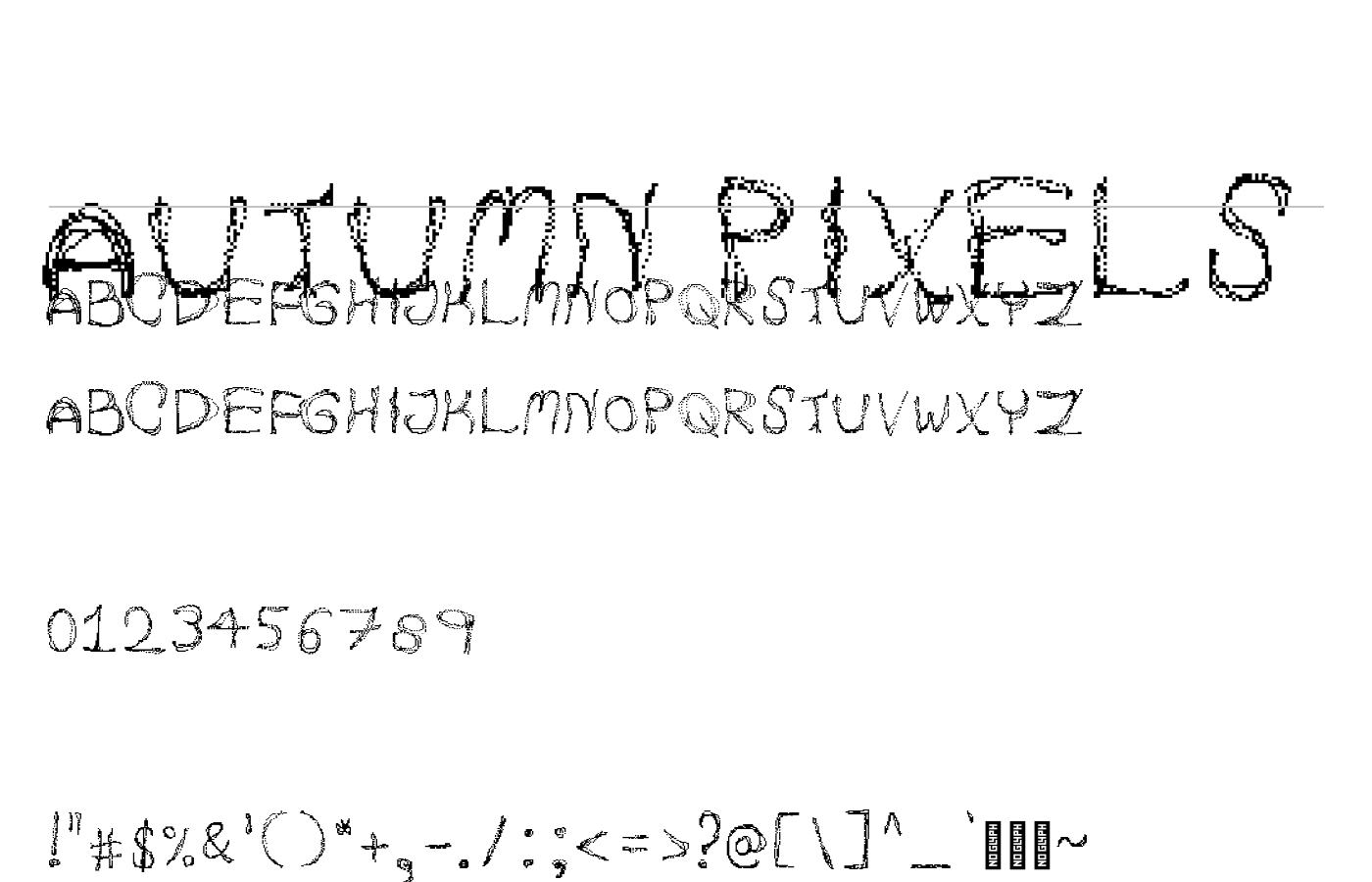
Autumn Pixels is a playful, pixel-inspired sans serif font with a hand-drawn, slightly irregular style that evokes a vintage digital aesthetic. Its light weight and narrow width combine with quirky letterforms to create a friendly, informal feel ideal for retro-themed designs, casual branding, and creative digital projects. This font works well in headlines, logos, or any display use where a touch of nostalgic charm and pixelated character is desired.
Autumn Pixels Font
About Autumn Pixels Font